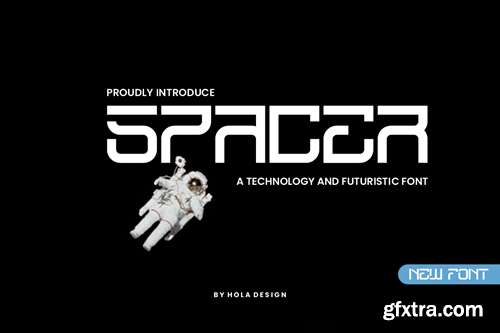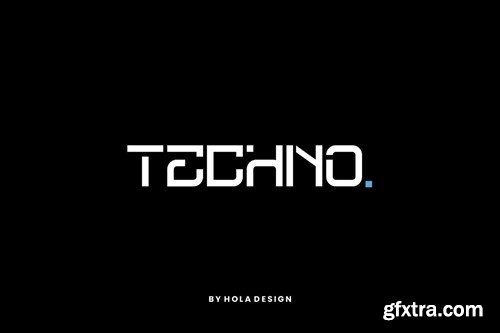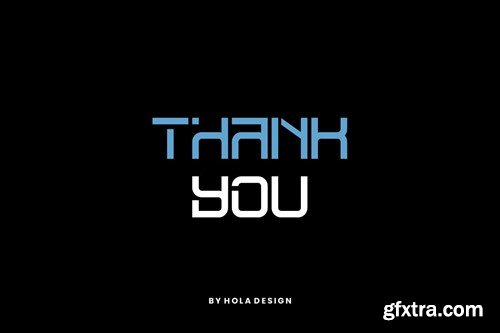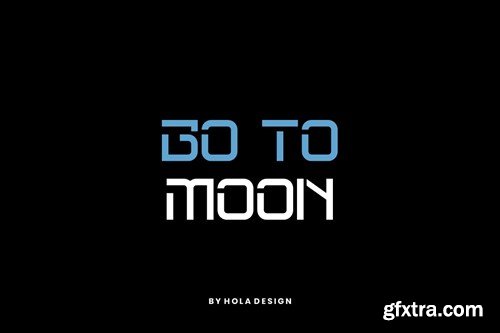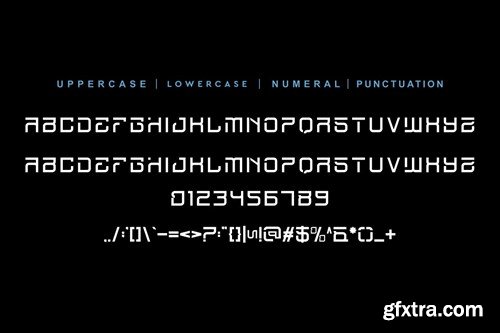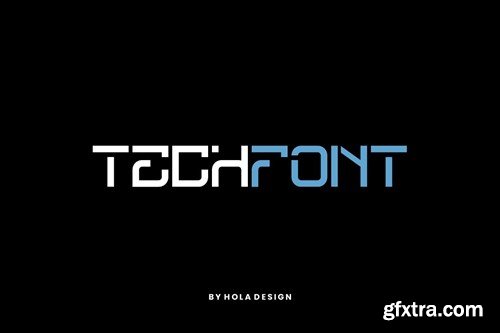
Spacer - 技术字体 P86NDKJ
Spacer - Technology Font P86NDKJ
Spacer - Technology Font
Spacer - Technology Font Font is unique . Ready to use for your design like labeling, movie sceen, poster, movie title, gigs, album covers, logos, and much more.